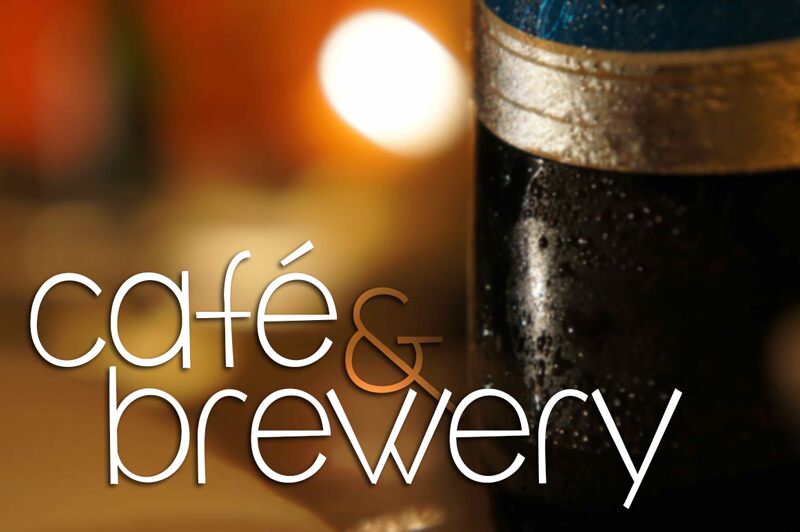
Café & Brewery by Brittney Murphy is a free retro display font with extremely tall, fine-lined letters and a breezy mid-century flavor. Rounded forms sit beside unusually spare, upright strokes. The shifting widths and playful joins keep the alphabet from feeling mechanically geometric.
Cafe packaging is its clearest setting, especially for coffee bags, bottle labels, and menu covers that benefit from light, period-minded lettering. It can also lend posters and storefront branding the easy sophistication associated with independent coffee shops, cocktail bars, and small-batch drinks.
Additional glyphs have been added, along with bold, italic, and bold italic versions.